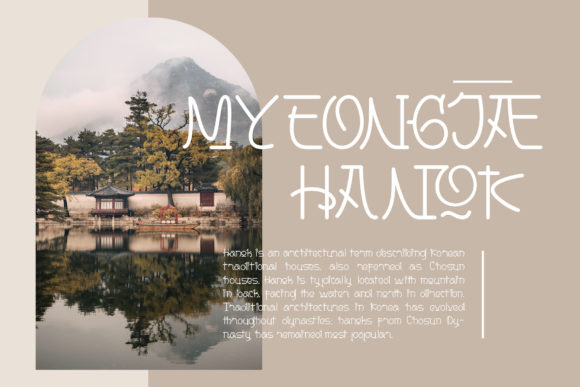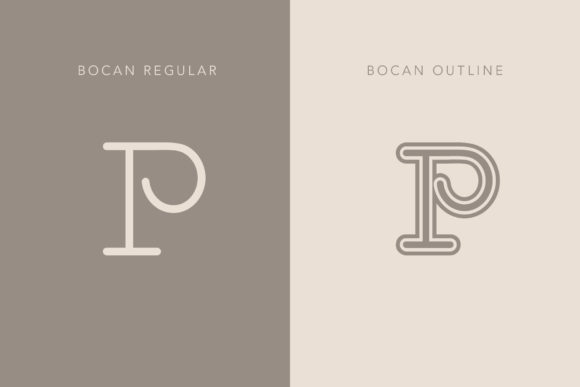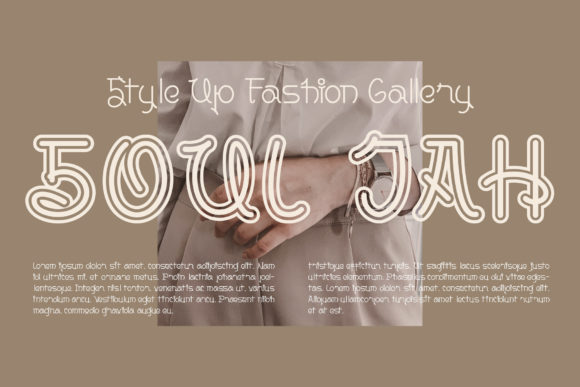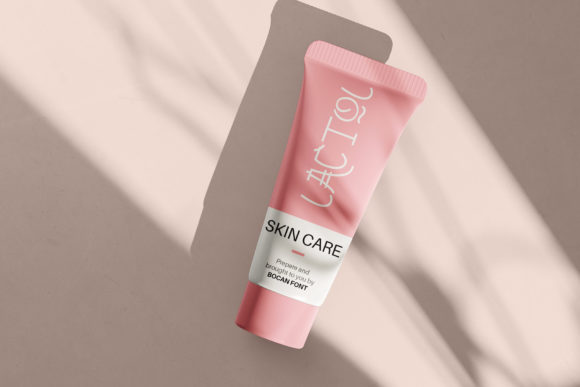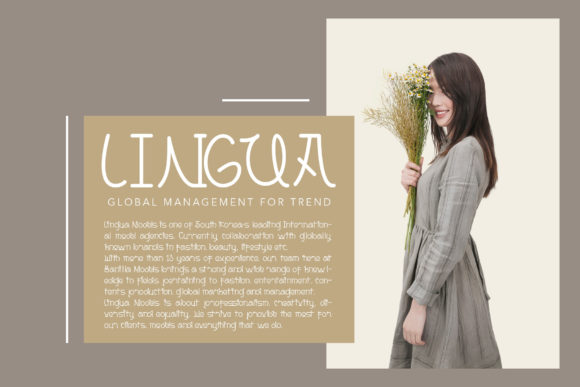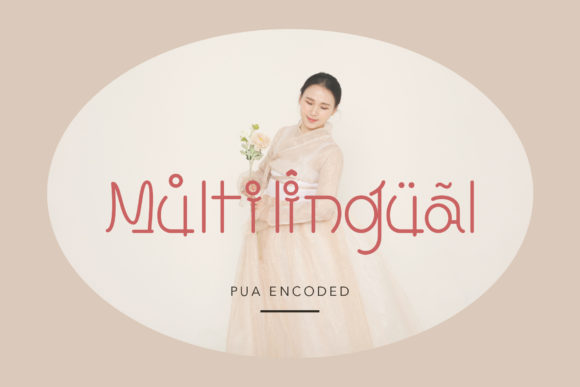
Introduction to Bocan Font
Bocan is a modern and stylish display font inspired by Korean movies and posters.
It looks unique and iconic, just perfect for bringing Korean vibes into your designs This font is PUA encoded which means you can access all of the glyphs and swashes with ease.